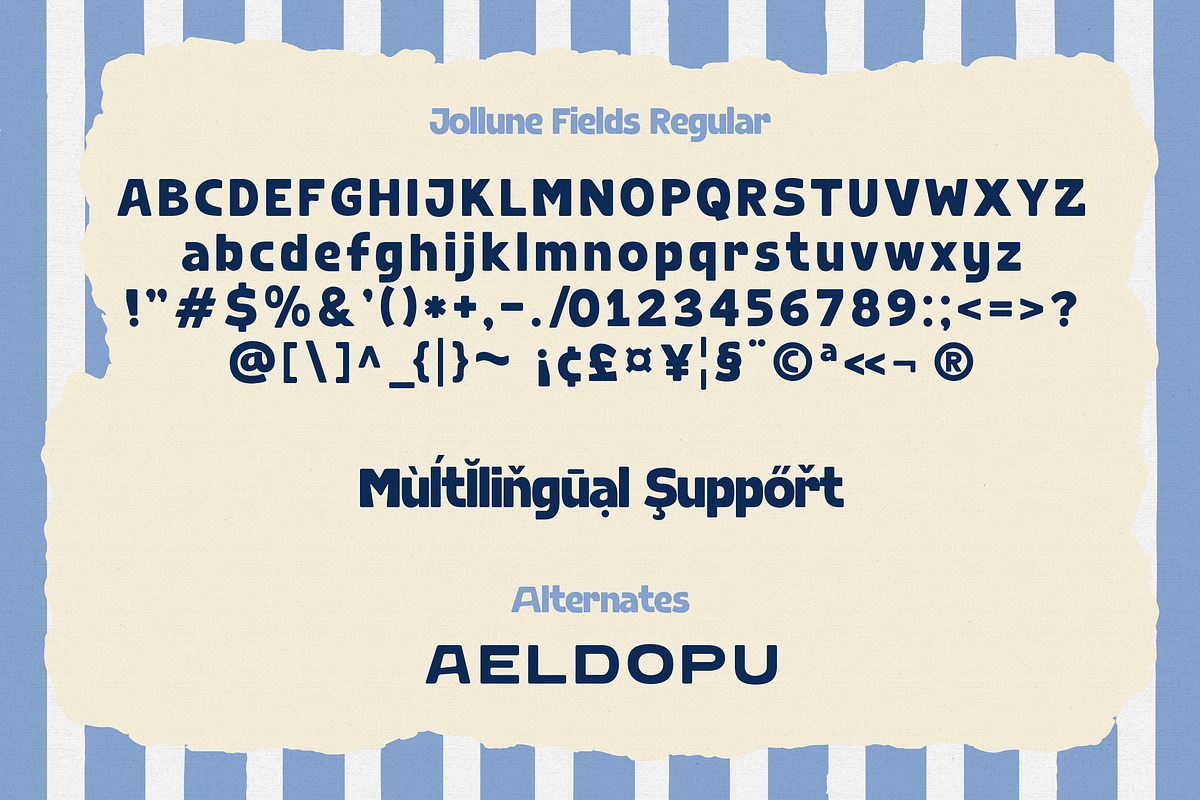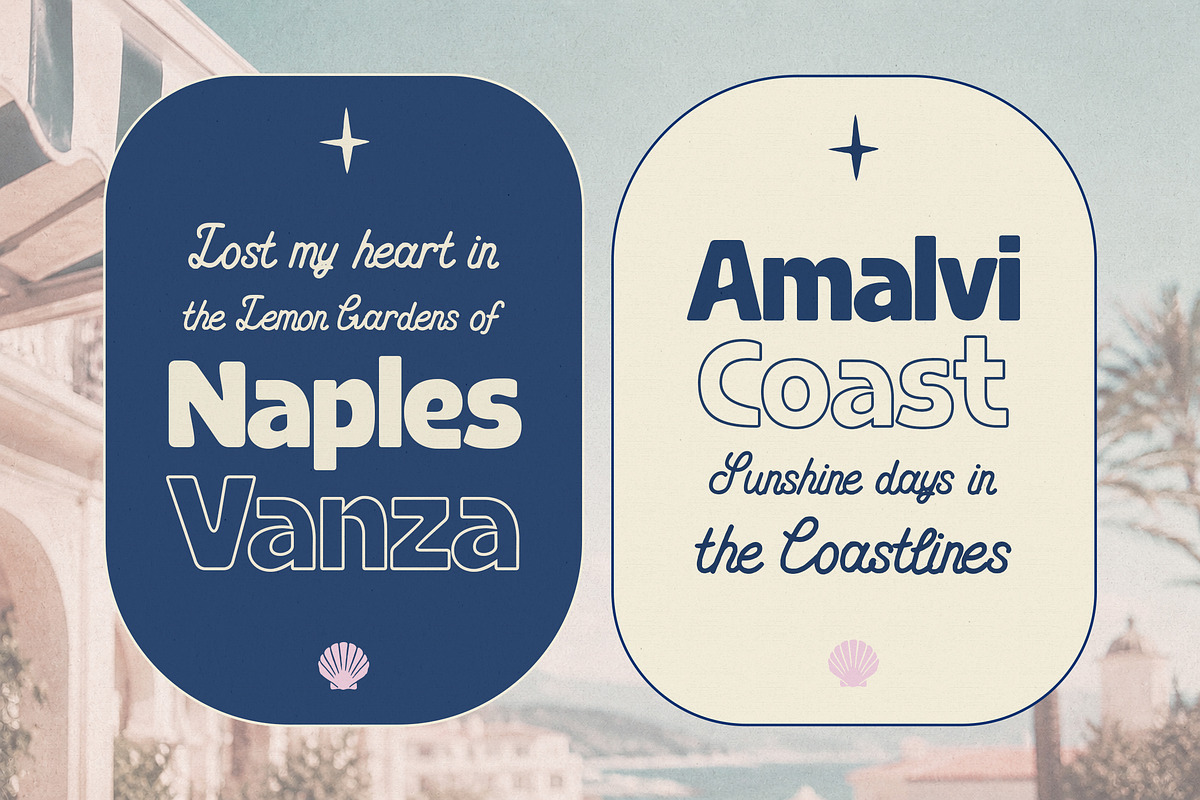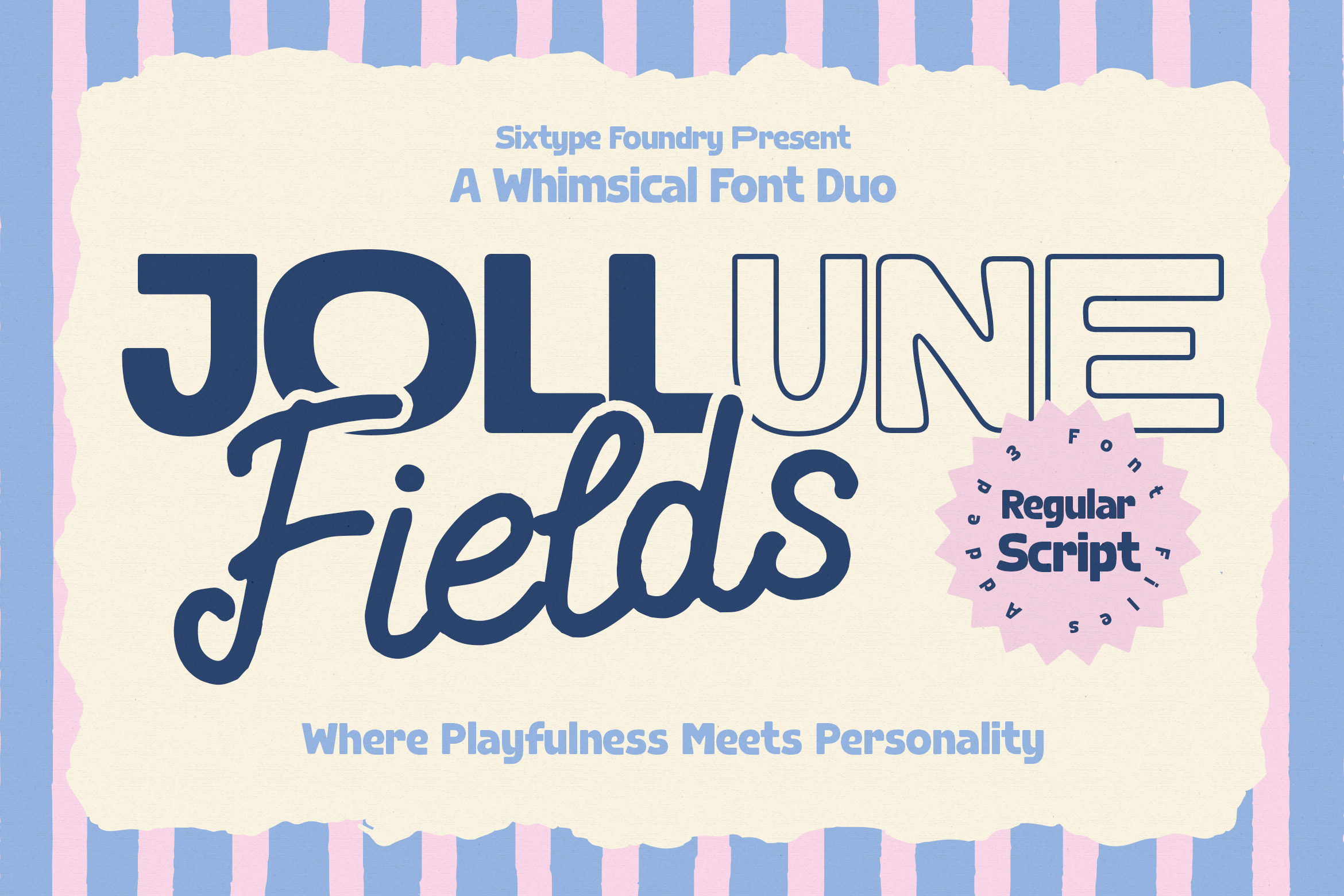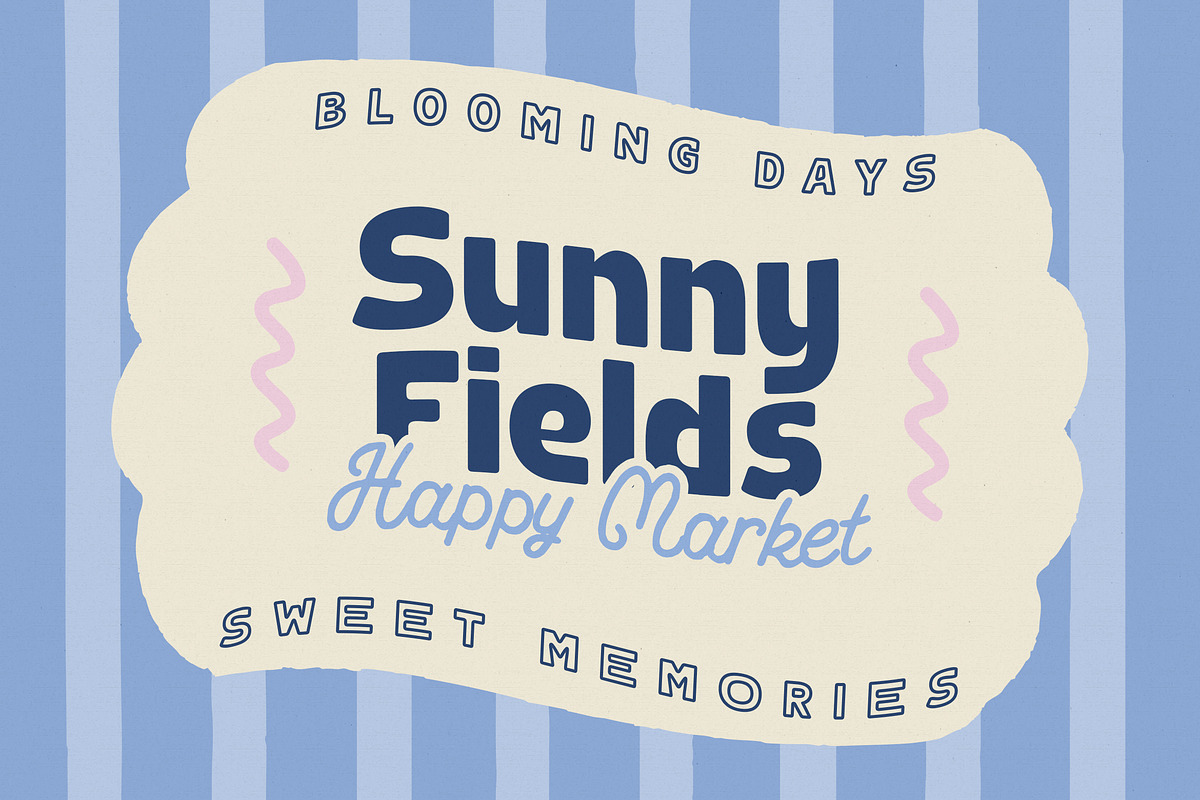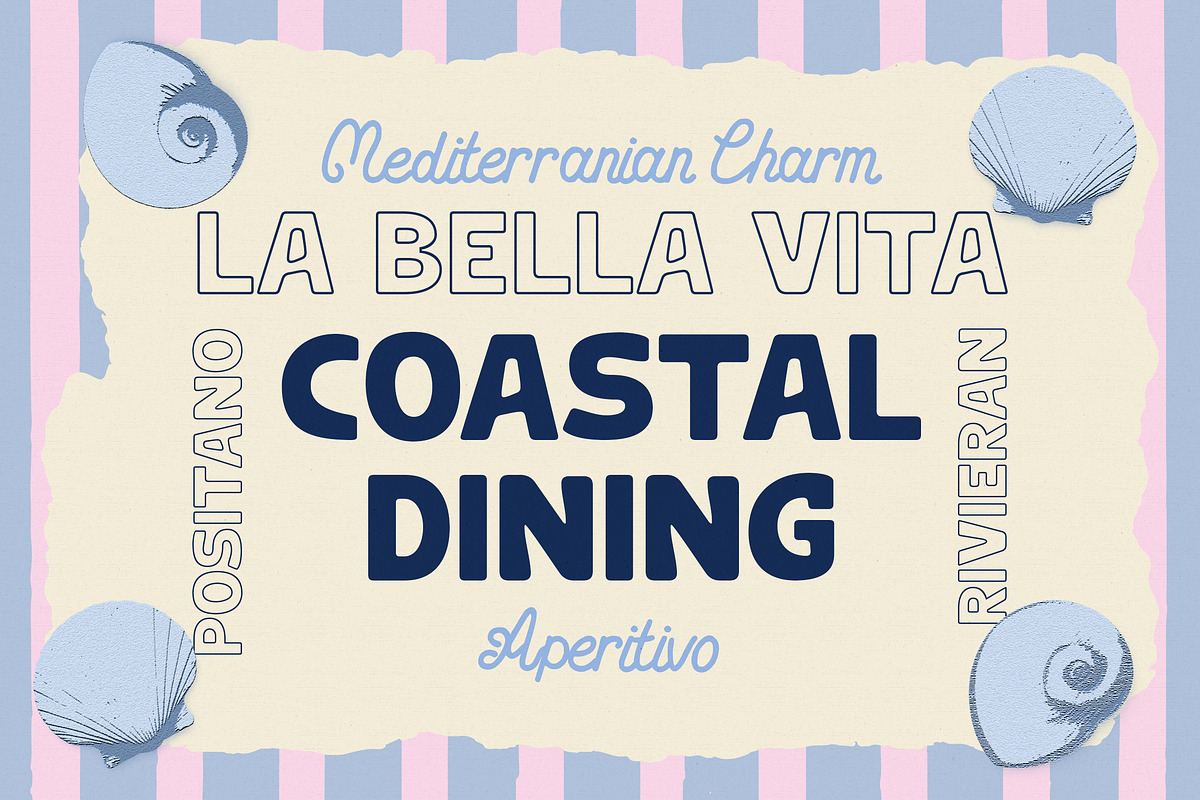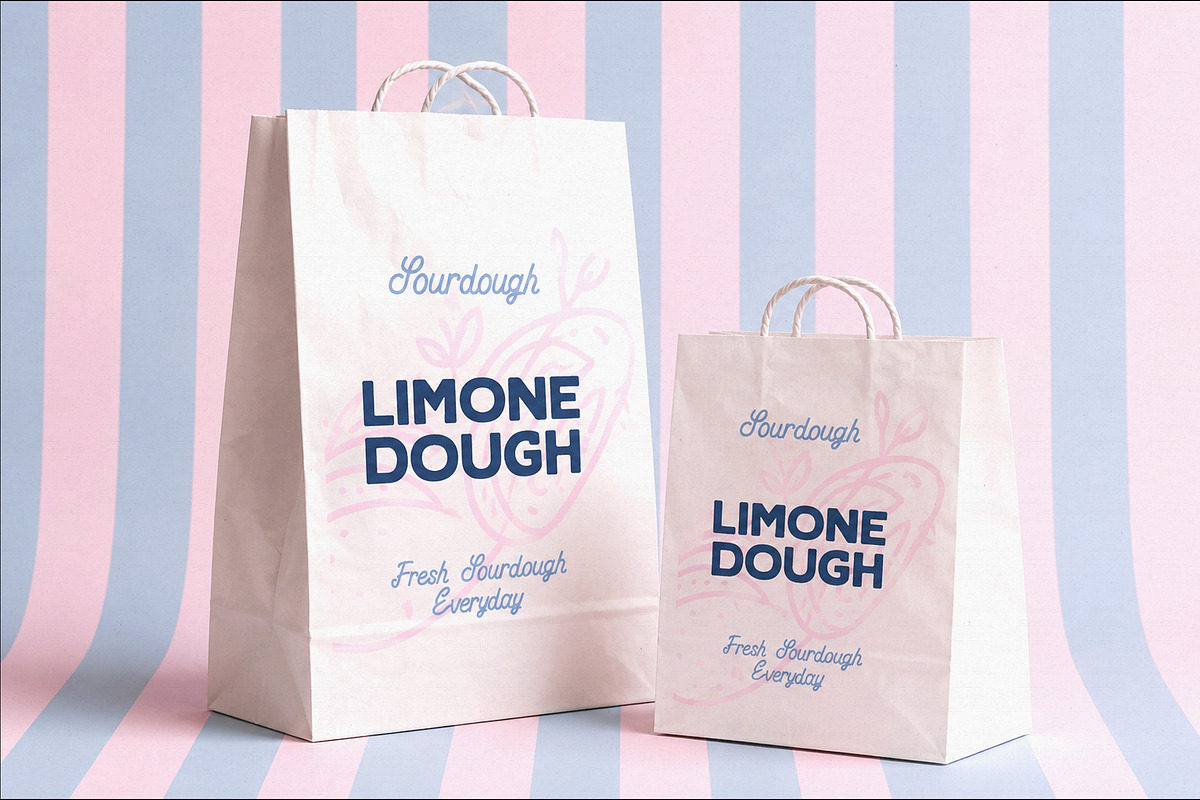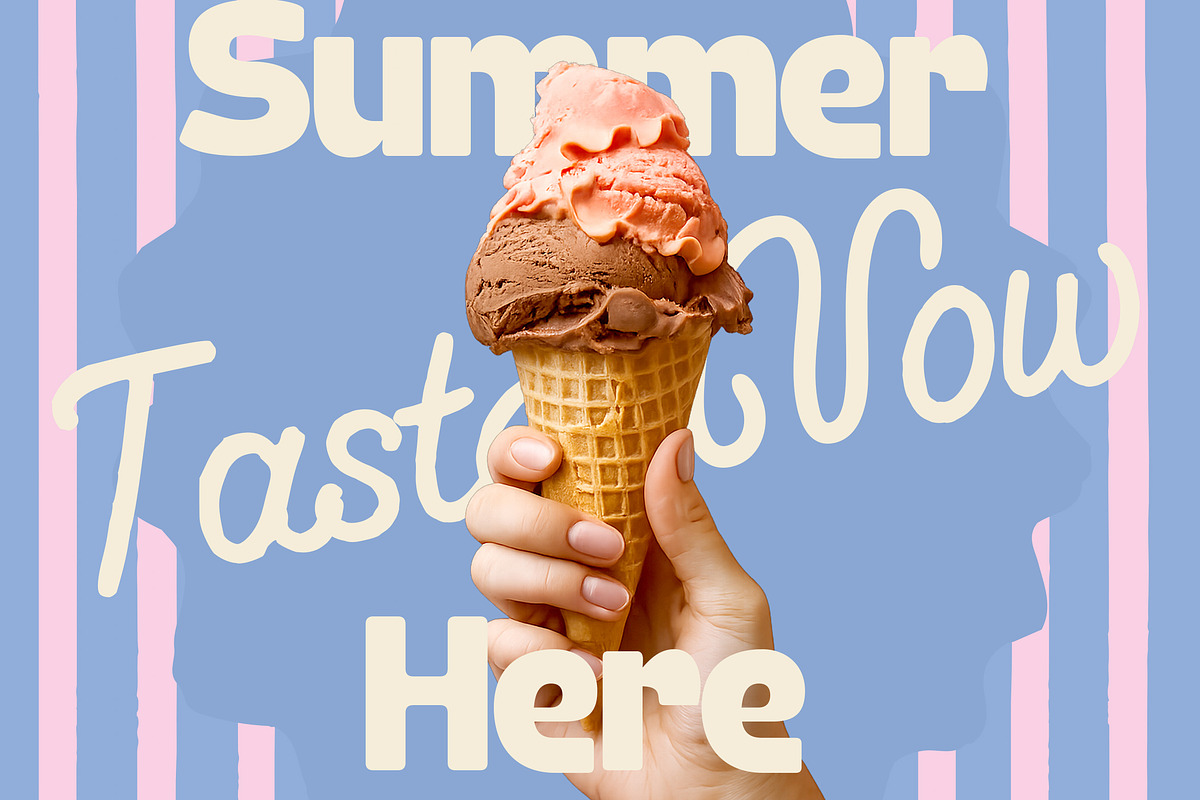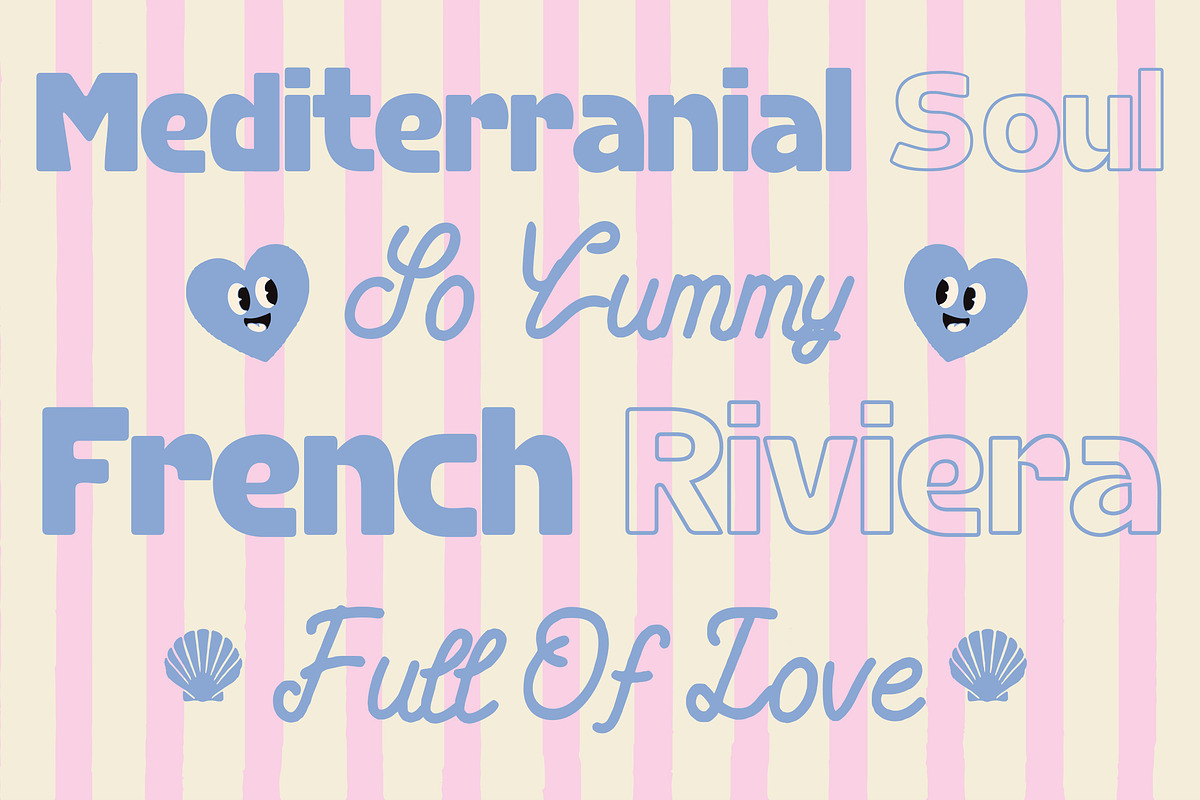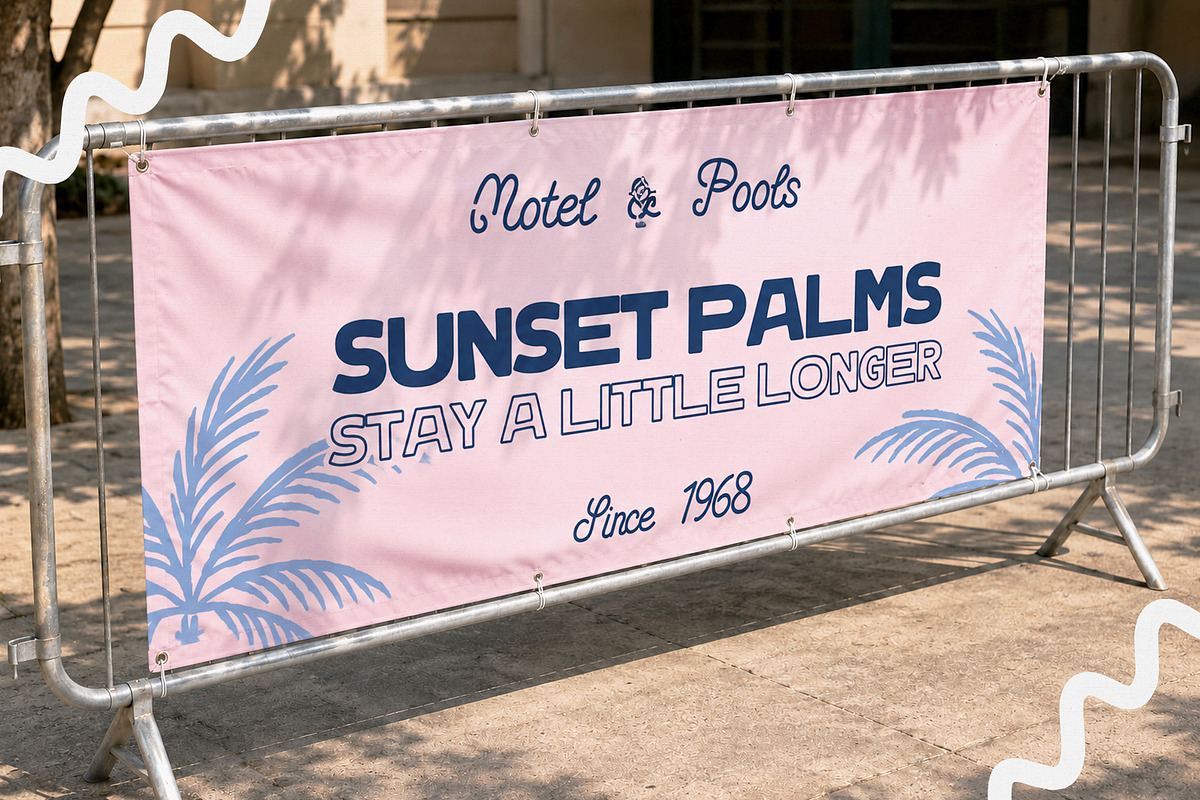
Jollune Fields Font Duo
Jollune Fields is a signature script and serif duo, rounded out with an outline variant for extra versatility. The Script carries smooth, connected strokes with an easy, natural lean, evoking the feel of handwritten notes rather than stiff calligraphy. Its companion Regular style keeps things clean and grounded, with well-balanced serif letterforms built to sit comfortably underneath the script in longer stretches of text. The Regular Outline mirrors that same serif structure in a lighter, hollow form, ready for layering, embossing-style effects, or standalone decorative use.
What makes Jollune Fields versatile is the range packed into three coordinated styles. The Script stays legible even across full phrases instead of dissolving into loops, the Regular carries body copy and supporting details with quiet confidence, and the Outline adds a textural, layered option for headlines, badges, or stamped designs. Together they give a single project several distinct looks without needing a second typeface.
Picture the Script heading up a wedding invitation, the Regular handling the finer details underneath, and the Outline stamped across a badge, label, or packaging design for extra texture. That range, expressive header, quiet body copy, layered accent, is where this set does its best work.
Jollune Fields suits wedding invitations and stationery, boutique branding and logo lockups, badge and stamp-style designs, candle and packaging labels, editorial headlines, and social media graphics. The Regular style also stands on its own for straightforward body copy where the script or outline styles would be too much.